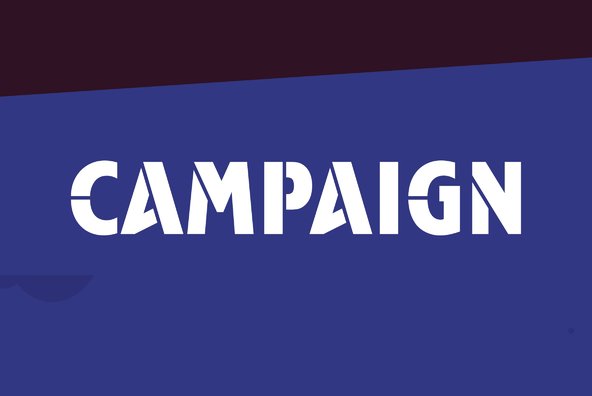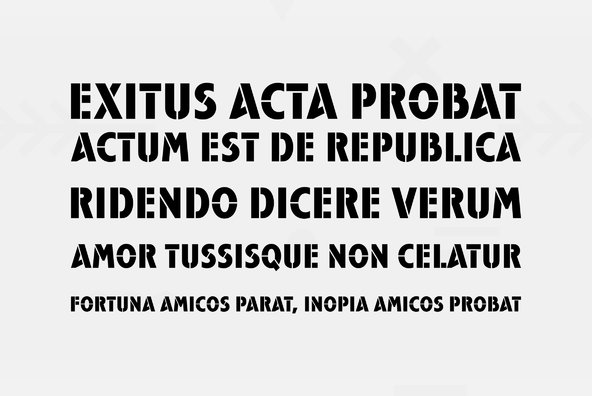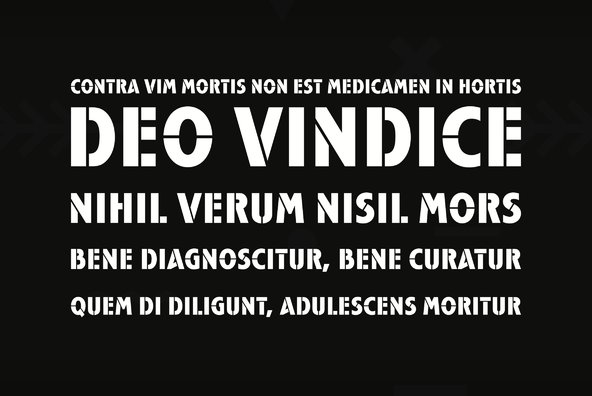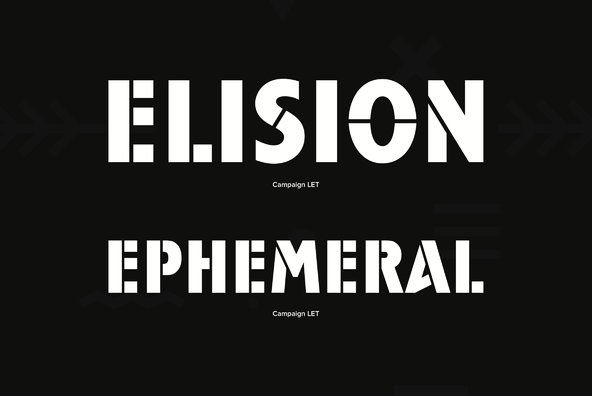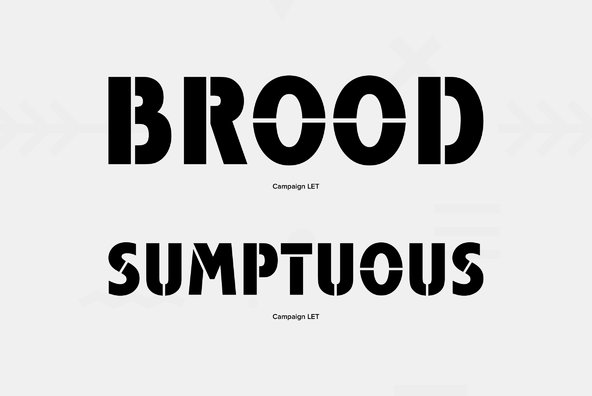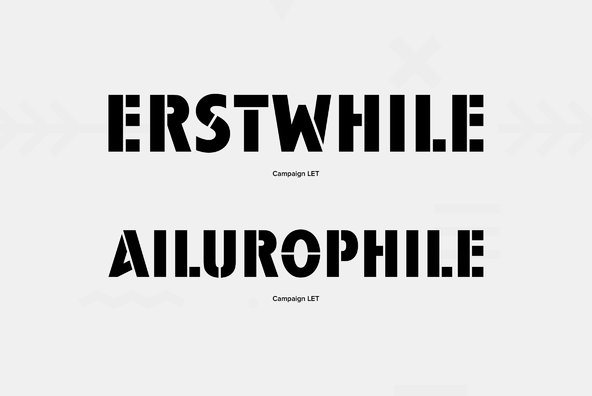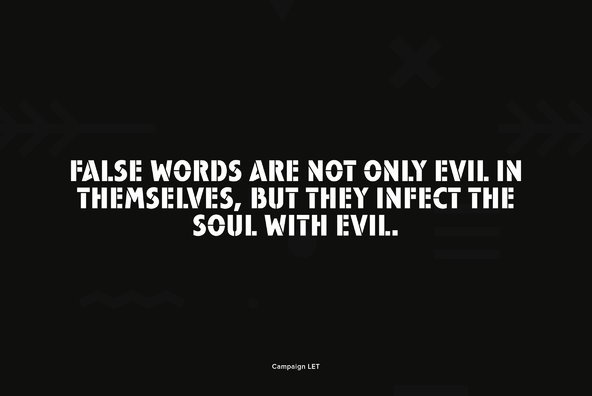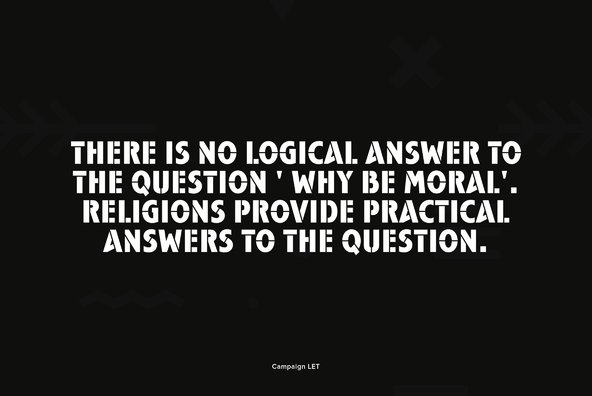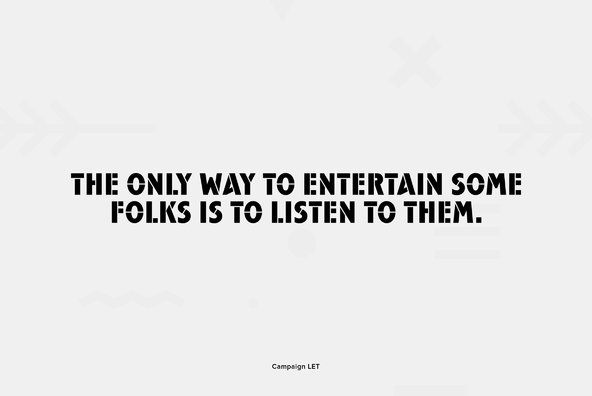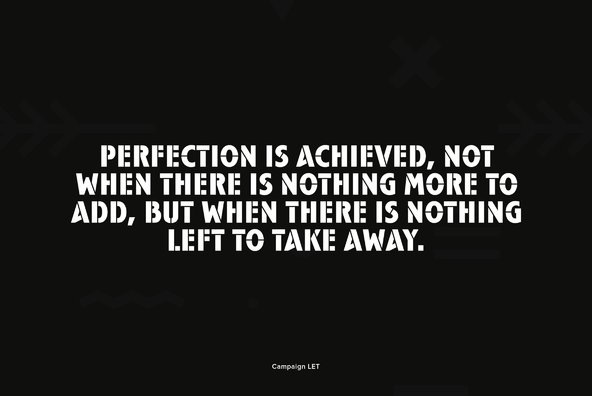
A bold sans serif typeface in which a stencil element has been incorporated that creates a strong feeling of immediacy.
A bold sans serif typeface in which a stencil element has been incorporated that creates a strong feeling of immediacy. Campaign looks best when closely letter and word spaced. It is a striking choice for large display sizes such as posters and billboards. Created by leading British designer Alan Meeks.